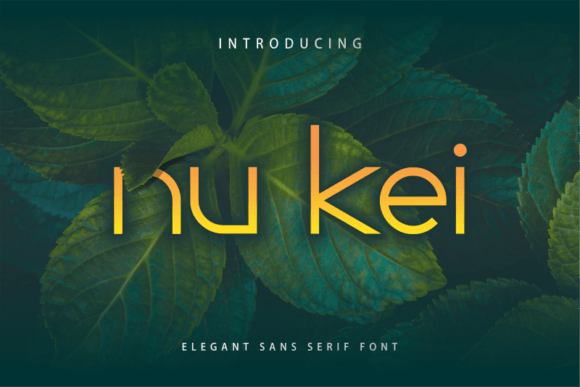
Behold, Nu Kei Font, the epitome of modern typography, ready to ignite your creative spirit and elevate your designs to new heights. Immerse yourself in a world of sleek lines, sharp angles, and a futurist aura that radiates innovation. Nu Kei is not just a font; it's a gateway to a realm of limitless possibilities.
With its clean and crisp structure, Nu Kei Font effortlessly enhances the visual appeal of any poster text. The perfect marriage of classic aesthetics and contemporary style, it commands attention and captivates audiences. Whether it's a bold statement or an intricate message, Nu Kei delivers with unmatched clarity and impact.
Step into the future with Nu Kei's futuristic overtones. Bold and confident, it exudes a cutting-edge vibe that sets your designs apart. The perfect font for forward-thinking projects, Nu Kei transforms your words into a visual symphony, resonating with audiences who appreciate the allure of the avant-garde.
As a creation of arukidz.fl, Nu Kei embodies the passion and expertise of a master font designer. Every curve, every stroke, every nuance has been meticulously crafted to achieve a synergy of form and function. The result is a font that is not only visually stunning but also incredibly versatile.
With Nu Kei, your designs will transcend the ordinary and embrace the extraordinary. Its futuristic flair adds an element of intrigue and excitement, while its clean typography ensures readability and impact. Unleash your creativity and envision your posters becoming captivating masterpieces, leaving an indelible mark on your audience.
Nu Kei Font is not just a font; it's an experience. It's an invitation to push boundaries, embrace innovation, and leave your mark on the world of design. Don't settle for the mundane; embrace the future of typography with Nu Kei Font today.